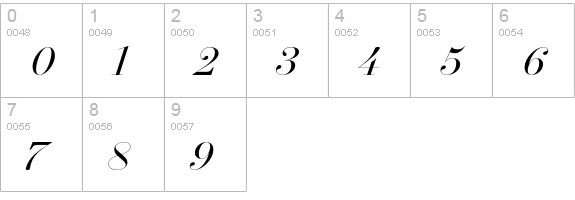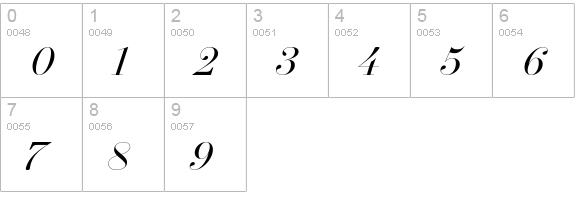
NewParis KingSize Italic is a distinctive, italic variant in the NewParis typeface family \xE2\x80\x94 well suited to design and typography projects.
NewParis KingSize Italic font is a stylish and modern typeface that exudes sophistication and elegance. With its sleek italic design and generous letter spacing, this font is perfect for adding a touch of class to your projects. The bold and distinctive characters of NewParis KingSize Italic make it stand out, making it ideal for headlines, titles, and other eye-catching elements. What makes NewParis KingSize Italic even more appealing is that it is available for free download at FontsMarket.com. This means you can easily access this high-quality font without any cost, making it a great choice for designers, creatives, and anyone looking to enhance their work with a touch of luxury. Whether you're working on a branding project, advertising campaign, or any creative endeavor that requires a touch of sophistication, NewParis KingSize Italic font is sure to make a statement. Download it for free today and elevate your designs to a whole new level.